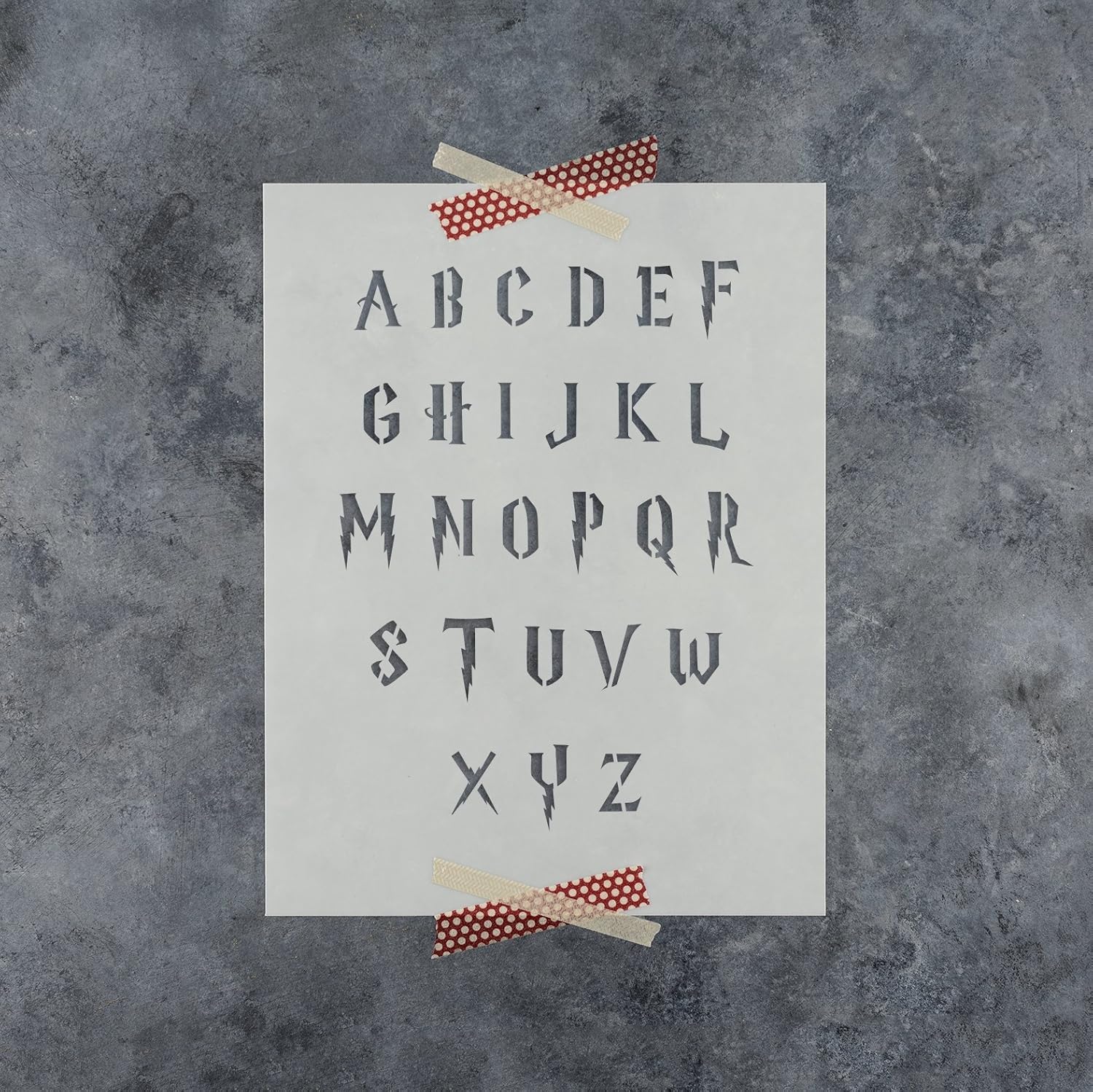
Font Harry Potter Letters
Font harry potter letters. It is called Cochin and was invented in 1912 as a print font, based on a much older copperplate font invented in 17 th century France by Nicolas Cochin Cochin is a builtin font on the MacOS;. For other platforms you can download it free for personal use from. Harry Potter Font Clipart Harry Potter Letters, Numbers and Symbols Clip Art Cricut, Hogwarts Font SVG PNG PDF Jpeg, for Party Themes PurplePaperGraphics From shop PurplePaperGraphics 5 out of 5 stars (934) 934 reviews Sale.
Various Type of Harry Potter Font The series of Harry Potter has the great attraction of various collections worldwide The books of Harry Potter are sold everywhere around the world in about eighty languages in which most of them got a huge success Here some of the most popular harry potter fonts of all time Able Able Font of Harry Potter. Last but not least, we couldn’t not talk about Harry Potter fonts without mentioning the Magic School font It’s bold, magical and has a little something that differentiates it from all the previous fonts bolts of lightning similar to the one on Harry’s forehead decorate some of the letters. There is a site that compiles listings of the type fonts used in the first six Harry Potter books Book 6, for instance, besides using Adobe Garamond for the text and Able for chapter titles and page numbers, employs Shipwreak Bold, Frankfurter Inline, Flemish Script, Brimley, Dollhouse, and P22 Da Vinci Forward.
What is the What's a good Harry Potterstyle font in Microsoft Word?. These free printable Harry Potter banner letters would be great for a Hogwarts or Harry Potter birthday party, or a wizard world themed baby shower or wedding You could also use these banner letters to create a custom happy birthday banner for a Harry Potter fanatic or even a graduation party, retirement party, or whatever festivities you need. With these harry potter font alphabet letters, harry potter font name and harry potter letter font below, may we can save among them for ideas to build your own graphic design Also look at these harry potter letter font, harry potter letter font and harry potter fonts to get more graphic file about font.
Collection of fonts for Harry potter Personal Use Free 171 downloads. Harry Potter is a novel series written by the British author J K Rowling The book tells the adventure story of young wizard Harry Potter with his friends at witchcraft and wizardry school Different fonts were used on the Harry Potter book covers, for its chapter title and elsewhere The lettering used for the book title is very similar to a typeface called Hocus Pocus, which comes in four styles and each with a complete character set. Harry Potter Font Generator Write Your Text Pick Font Family Pick Font Size Minimum Small Medium Big Maximum Enter Font size Text color Background color Text Preview Comment Section Fonts in Use Bling Font Generator Myspace Font Generator Modern Font Generator Bloody Font Generator.